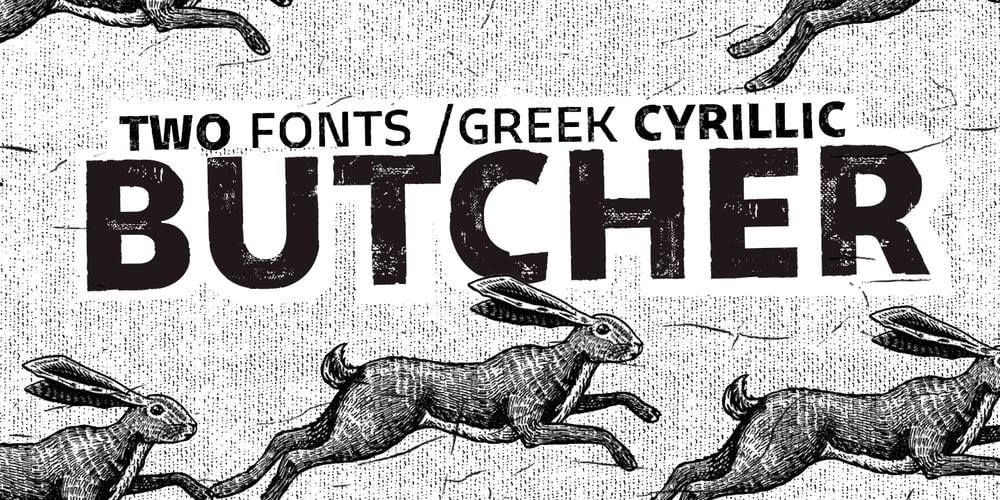
Butcher Font Family was designed by Rodrigo Araya Salas and published by RodrigoTypo. Butcher contains 2 styles and family package options. Butcher is a Rough font with 2 styles, a medium and a black to play with the weights, it contains the Greek and Cyrillic alphabet, special for action titles